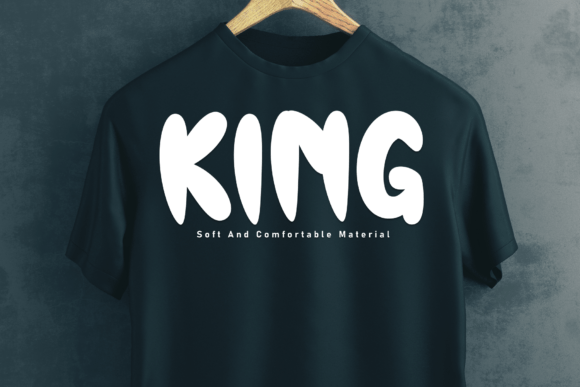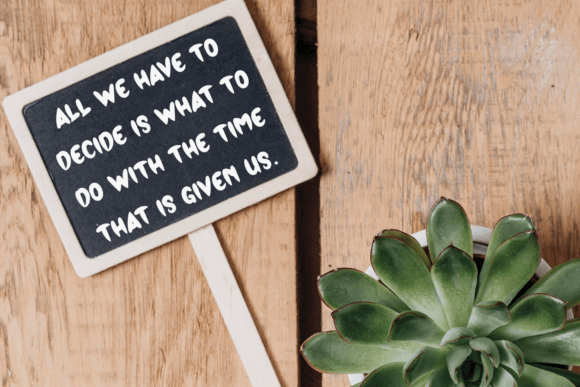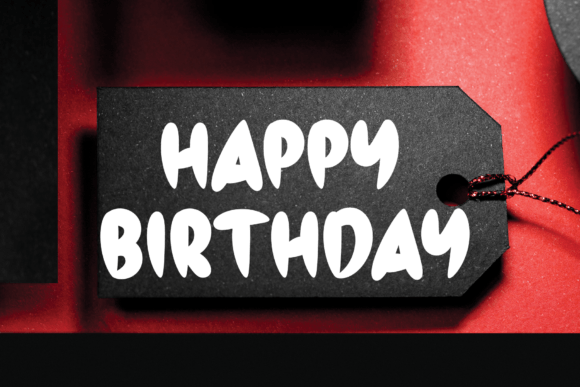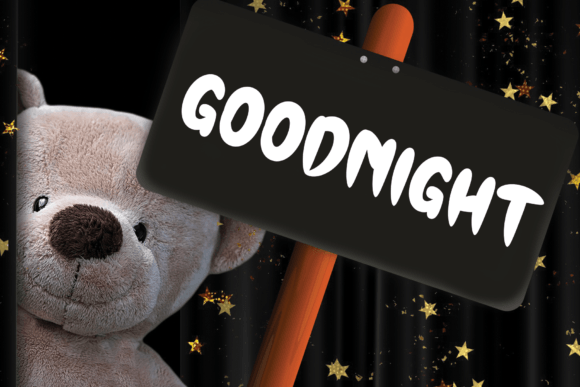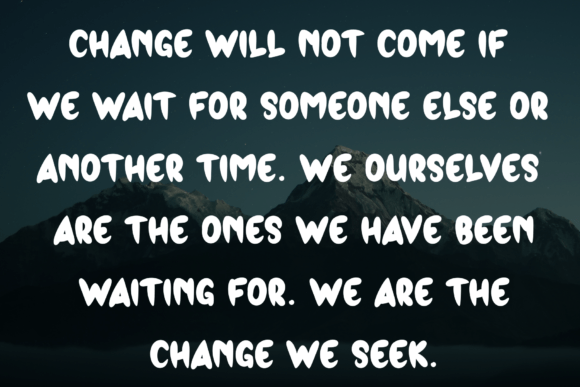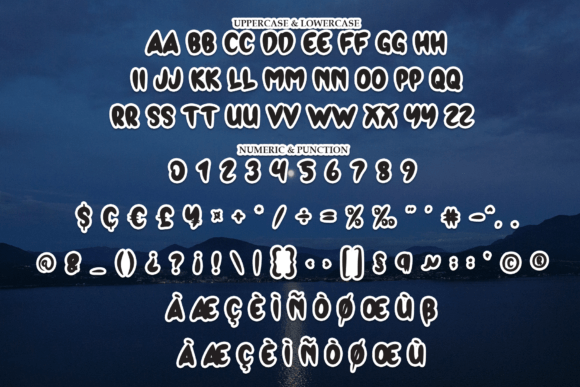
The Sweet and Friendly Black Night Font: A Designer’s Delight
I still remember the time I was working on a wedding invitation project, and I just couldn’t find the right font to capture the playful yet elegant vibe my client was looking for. I scoured through font libraries, tried out dozens of options, but nothing seemed quite right. That was until I stumbled upon the Black Night Font – a sweet and friendly handwritten display font that instantly won me over! 💕
- ✅ Cute and fun: Black Night Font is perfect for adding a playful touch to any design project.
- ✅ Handwritten charm: The font’s handwritten feel makes it ideal for wedding invitations, cards, and other personal designs.
- ✅ Elegant yet approachable: Black Night Font strikes the perfect balance between sophistication and friendliness.
Small Quirks and Limitations 🤔
- ⚠️ Limited use cases: While Black Night Font is amazing for display purposes, it might not be the best choice for body text or long-form content.
- ⚠️ Kerning issues: As with any font, you might need to adjust kerning for optimal results, especially when using larger font sizes.
The Story Behind Black Night Font: Designer Inspiration
While the actual story behind Black Night Font might be unknown, it’s easy to imagine that the designer was inspired by the magic of a warm summer night – full of laughter, love, and endless possibilities. The font’s sweet and friendly feel makes it perfect for capturing the essence of special moments and celebrations.
Q: What type of projects is Black Night Font best suited for?
A: Black Night Font is ideal for display purposes, such as wedding invitations, cards, and other design projects that require a playful yet elegant touch.
Q: Can I use Black Night Font for body text or long-form content?
A: While Black Night Font is amazing for display purposes, it might not be the best choice for body text or long-form content – consider using a clearer, more readable font for those cases.